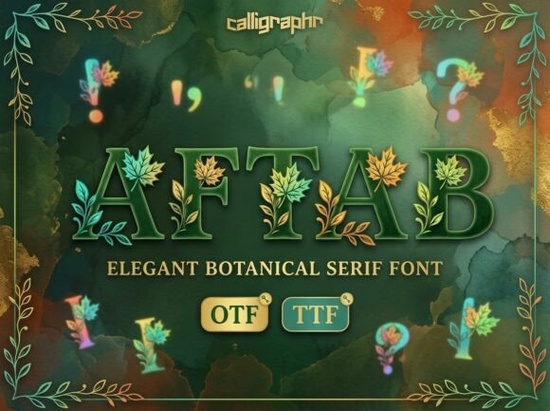
If you're working on a fall-themed design project and need a typeface that actually feels like autumn, Aftab Font is worth a close look. It's a serif font built around hand-drawn autumn leaves and vine motifs, designed to bring a warm, rustic character to seasonal projects. Whether you're creating Thanksgiving invitations, harvest festival branding, or cozy editorial layouts, this font does a lot of the atmospheric heavy lifting without needing extra design elements.
What makes the Aftab font different from a regular serif?
Most serif fonts stick to clean lines and structured letterforms. Aftab goes a different route. Each character is decorated with organic leaf and vine illustrations that are woven directly into the letter shapes. The result is a typeface that reads clearly at normal sizes but reveals more detail the closer you look. It has a rhythmic, hand-crafted quality that feels natural rather than overly ornamental.
Compared to something like the Elm font, which leans into decorative botanical styling, Aftab focuses specifically on autumnal warmth. The leaf motifs feel grounded and earthy, making it a strong fit for projects tied to fall, harvest, or woodland themes.
What projects does this font work best for?
Aftab is versatile within its seasonal niche. Here are some practical uses:
- Thanksgiving invitations and greeting cards The leaf details add a festive, handcrafted feel without extra illustration work.
- Harvest and farm-to-table branding Perfect for logos, menus, and packaging for small food businesses or farmers' markets.
- Autumn home decor prints Think wall art, throw pillow designs, and seasonal quote prints for POD shops.
- Editorial layouts and magazine spreads Use it for headings in lifestyle blogs, recipe pages, or fall lookbooks.
- Scrapbooking and DIY crafts The detailed motifs cut well with Cricut and Silhouette machines.
For print-on-demand sellers, Aftab pairs well with simple sans-serif body text. A clean font like a basic sans keeps the design balanced and ensures the decorative characters stay readable on products like mugs, tote bags, and t-shirts.
Is the Aftab font easy to work with?
That said, because of the leaf and vine details, Aftab works best at medium to large sizes. At very small sizes, the intricate motifs can become hard to see, and the font may lose some of its visual impact. For body copy or very small text, consider pairing it with a simpler companion font.
How does it compare to other decorative serif fonts?
If you're browsing for nature-inspired or seasonally themed typefaces, you'll find a range of options on Creative Fabrica. For instance, the Pirate font offers a bold, adventurous aesthetic suited to completely different themes, while Aftab stays firmly in the autumn and woodland category.
The key thing that sets Aftab apart is its specificity. It doesn't try to be a general-purpose decorative font. Instead, it commits fully to a fall harvest aesthetic and because of that, it does that particular job extremely well. If your project calls for cozy, nature-forward seasonal design, this font fits without feeling generic.
What should you pair it with?
Aftab's detailed lettering works best when it's not competing with other busy elements. Keep your supporting design choices simple:
- Body text: Use a clean sans-serif or a simple, readable serif at smaller sizes.
- Color palette: Warm earth tones burnt orange, deep red, mustard yellow, olive green complement the leaf motifs naturally.
- Backgrounds: Textured kraft paper, soft linen, or simple solid colors let the font details stand out.
- Spacing: Give the characters a little extra room. The decorative details benefit from slightly generous letter spacing.
- ✅ Test the font at your target size to make sure the leaf details read clearly.
- ✅ Pick a simple companion font for any body text or smaller elements.